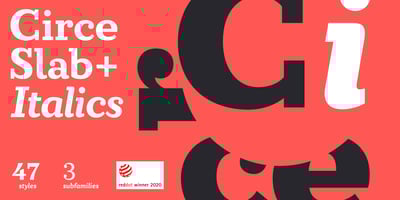
Circe Slab Font is perfect for enchanting brand identities, mystical product packaging, magical event promotions, fantasy book covers, supernatural gaming interfaces, witchcraft-themed designs, ethereal spa branding, enchanted forest campaigns, mythological publications, and spellbinding marketing communications.
Circe Slab Font is exciting because it weaves together mystical enchantment and contemporary strength with its magically robust letterforms that channel the ancient power of sorceresses while maintaining the solid reliability of modern slab serif design. Its bewitchingly powerful character design reflects both the mysterious allure of ancient magic and the grounded confidence needed for contemporary brand authority, making it perfect for brands seeking to cast spells of attraction and memorable enchantment.
Circe Slab Font family includes thin, light, regular, medium, bold, and black weights, each with corresponding italic versions. The font family also features mystical ornaments, enchanted ligatures, magical symbols, and supernatural decorative elements that enhance its spellbinding aesthetic and versatility.
This magically powerful typeface represents the perfect fusion of mystical enchantment and contemporary typography strength. Circe Slab Font Free Download enables designers to experience its bewitching appeal before making a commercial commitment. The font's ability to convey both ancient wisdom and modern authority makes it ideal for brands targeting audiences fascinated by magic, fantasy, and supernatural experiences.
Whether you're developing mystical brand identities, creating fantasy entertainment materials, or designing supernatural product communications, Circe Slab Font brings an unmistakable sense of magical authority and enchanting presence to every project. Its mystical character and supernatural heritage create powerful connections that captivate audiences seeking transformative experiences and magical inspiration.
The font's versatility excels in fantasy and lifestyle environments where mystical appeal and strong presence are essential. Its enchanting character makes it particularly effective for fantasy publishers, mystical lifestyle brands, supernatural entertainment companies, and magical experience providers seeking to establish spellbinding connections with audiences hungry for wonder and transformation.
For designers working on projects requiring genuine mystical character and supernatural appeal, Circe Slab Font offers an exceptional solution. Its enchanting presence and comprehensive magical elements provide the tools needed for creating truly spellbinding communications, while its powerful strength ensures your designs channel the irresistible combination of ancient wisdom and contemporary authority that defines truly transformative magical experiences.